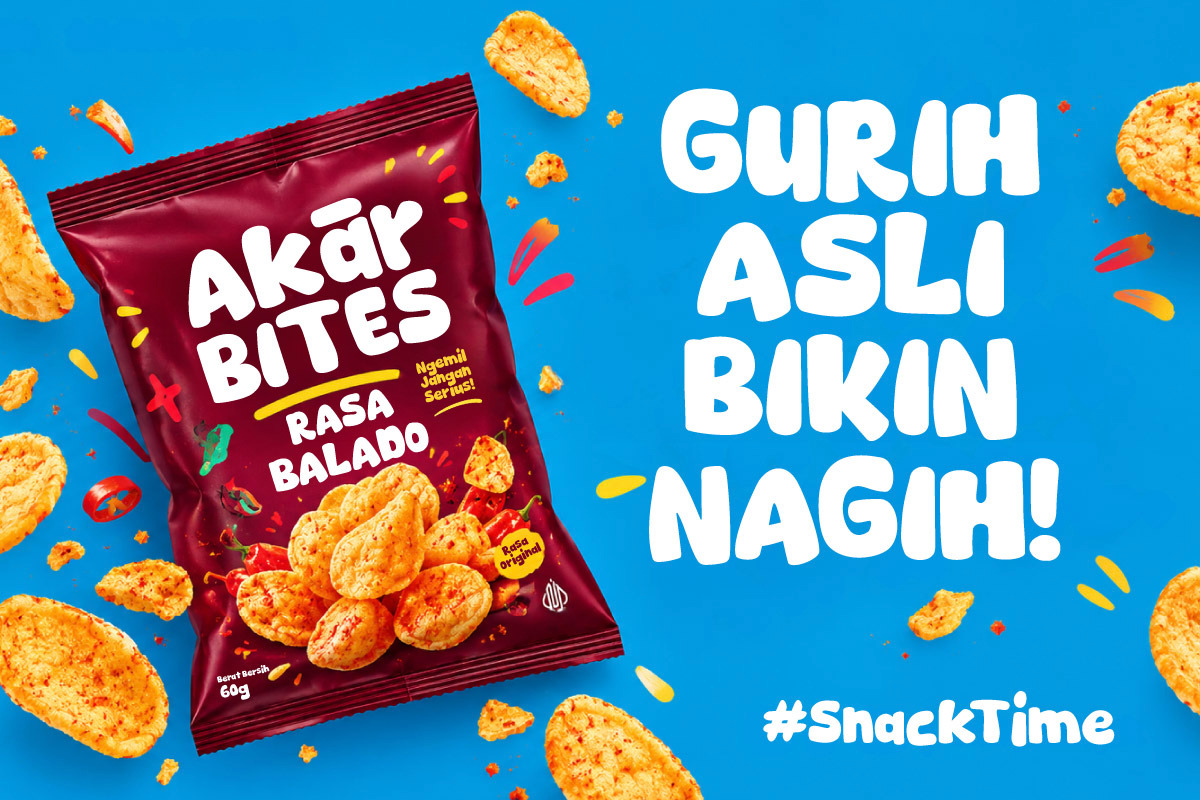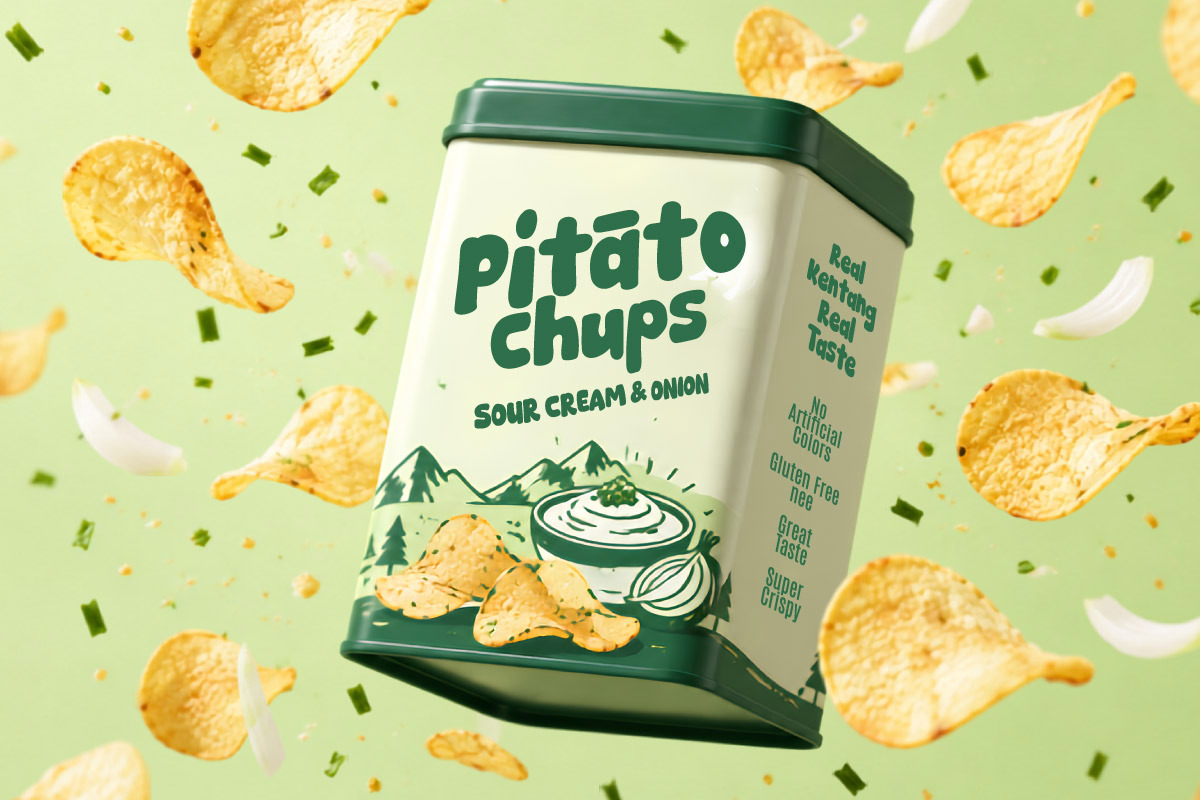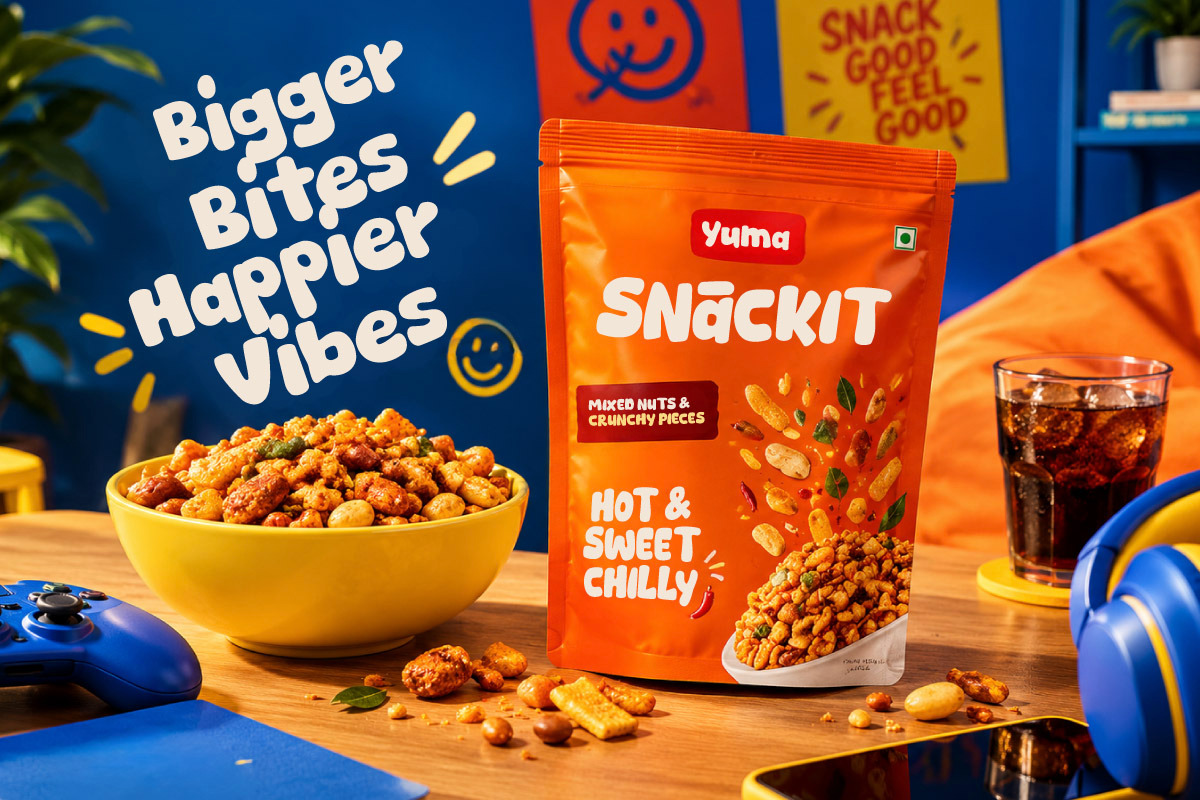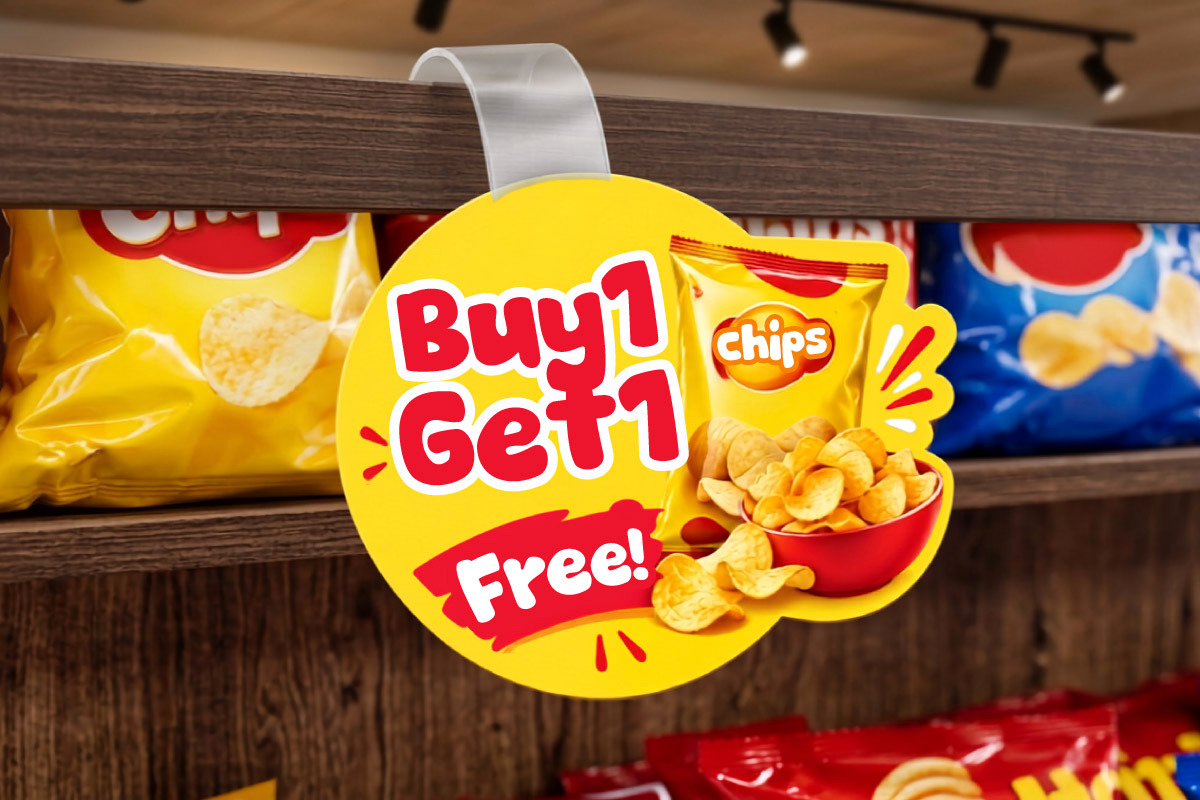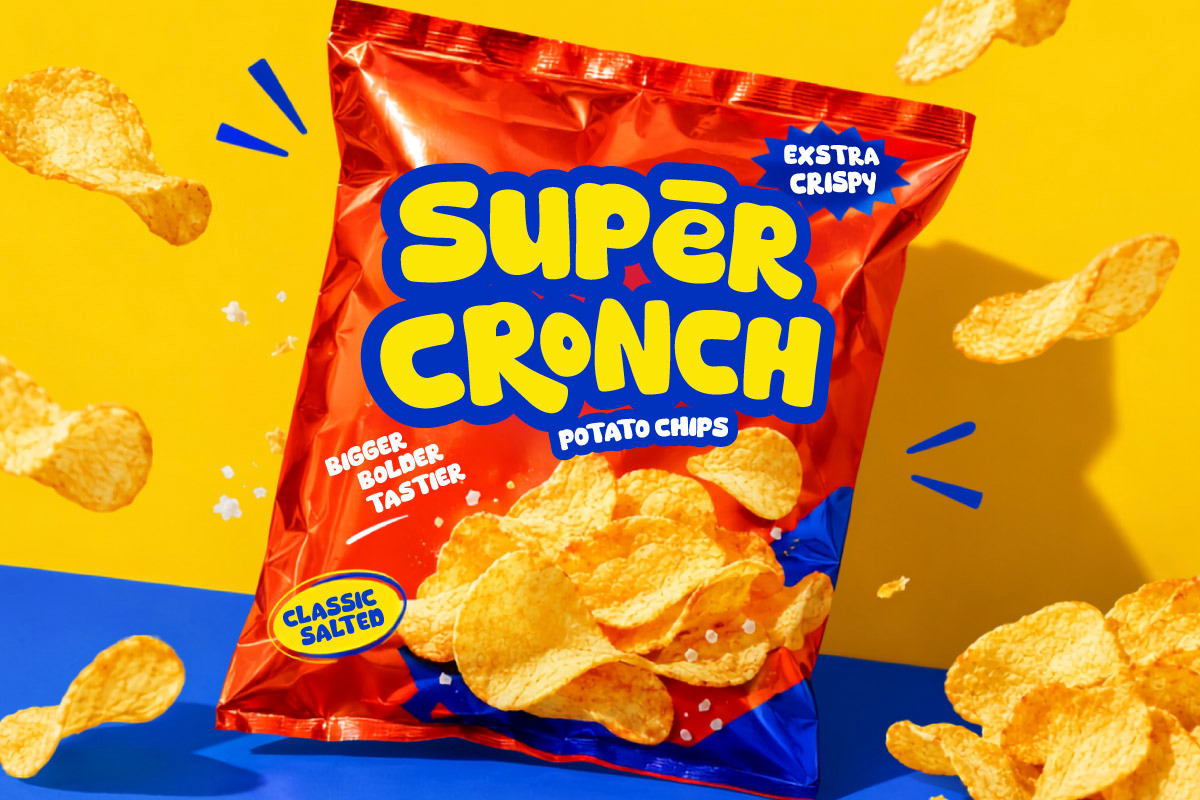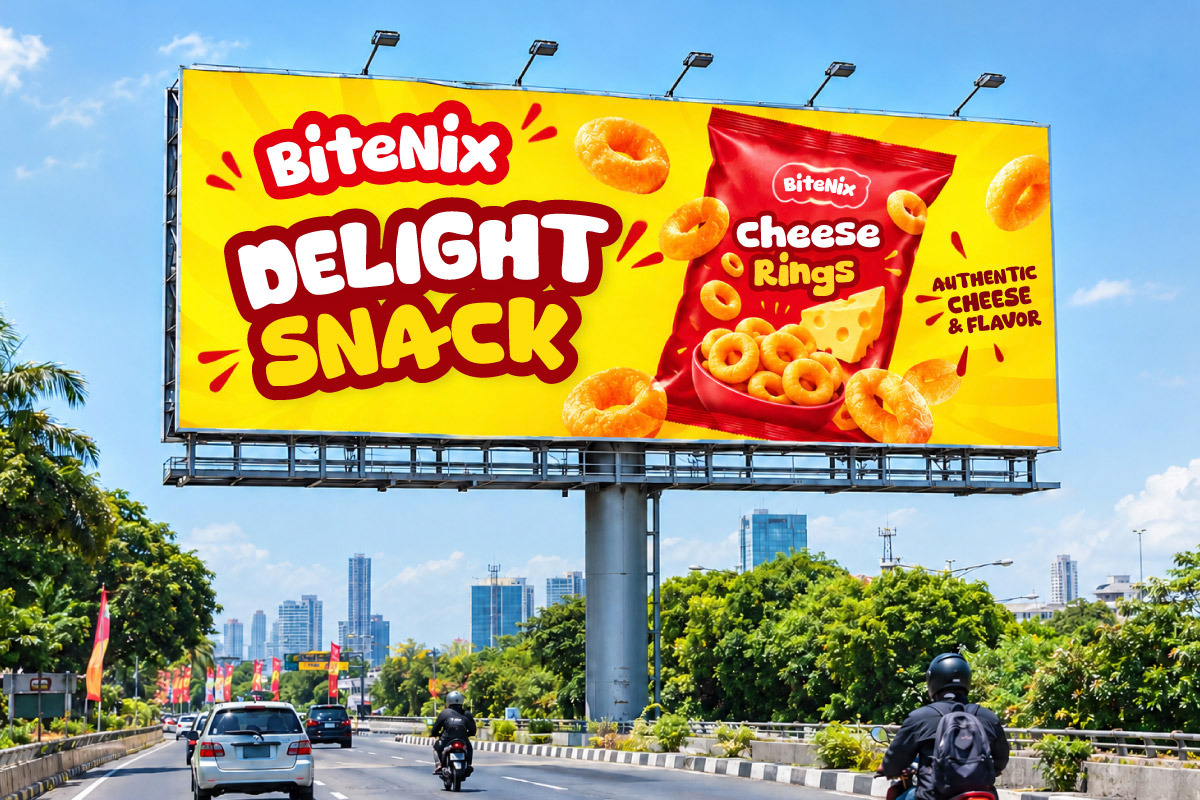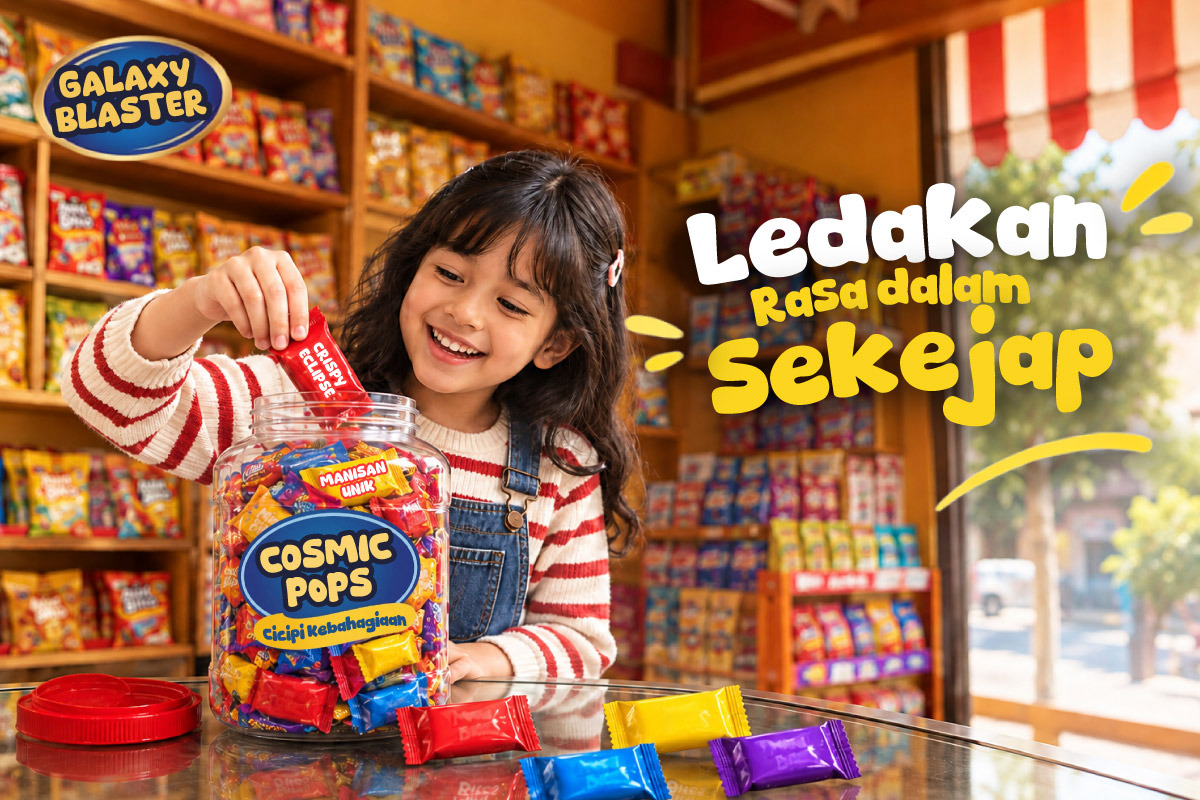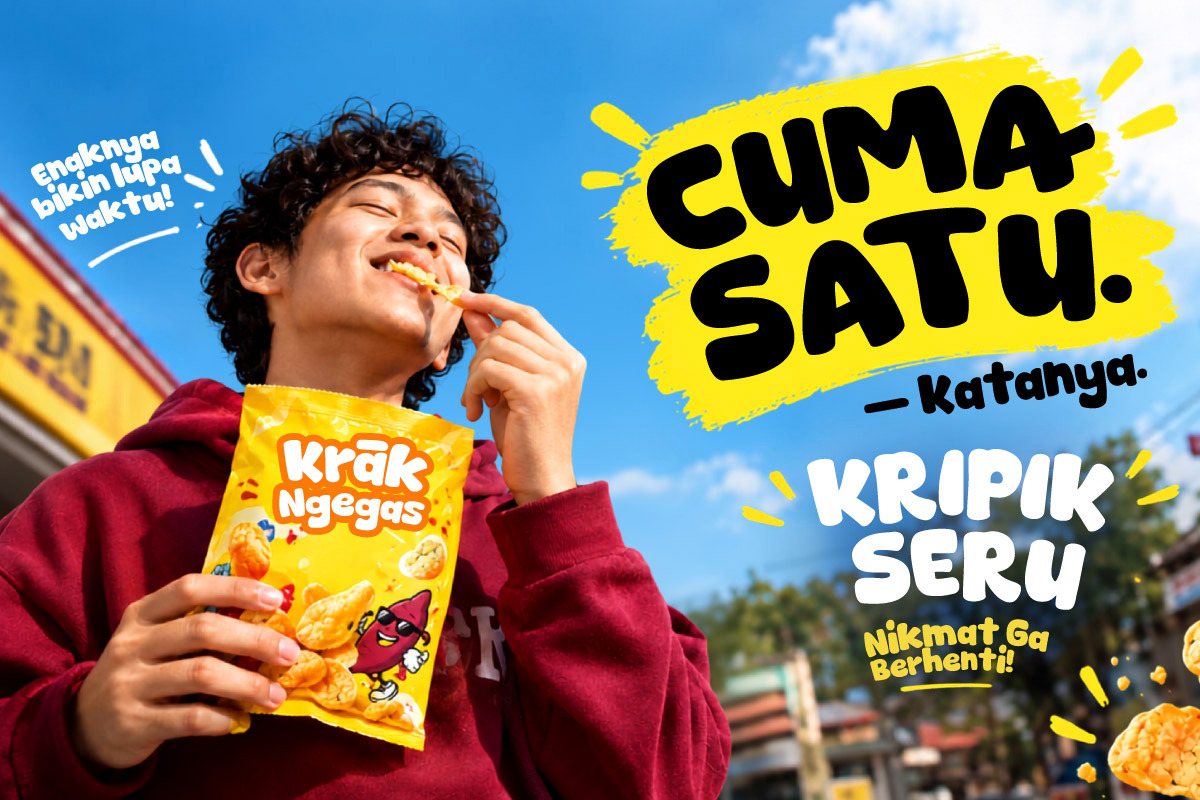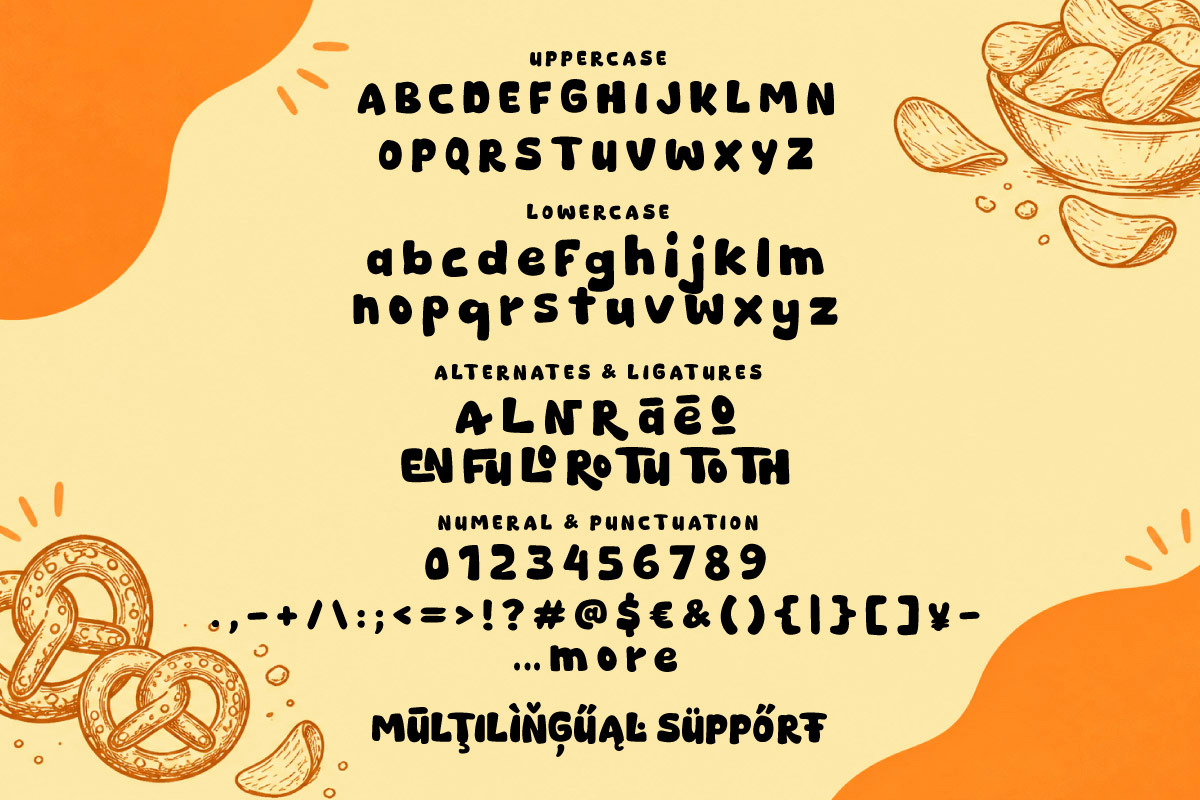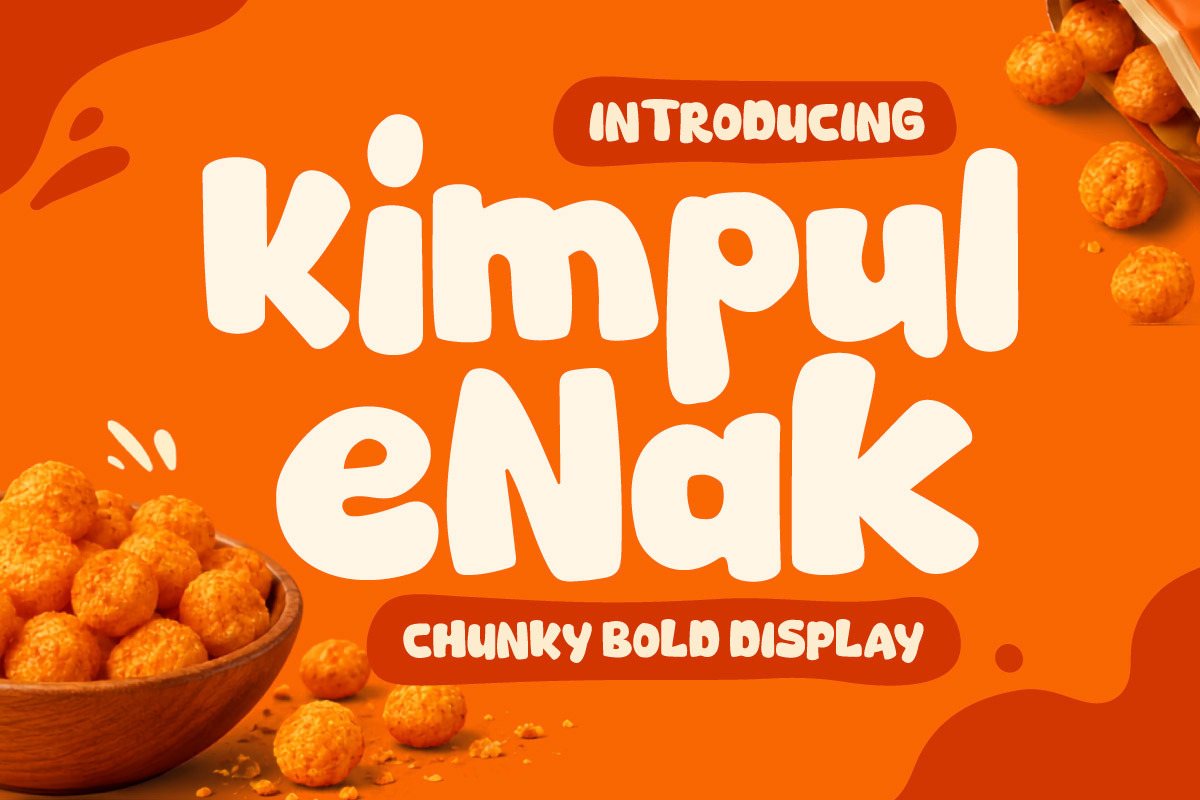
Kimpul Enak - Chunky Bold Font
Kimpul Enak steps up as a chunky bold display font packed with playful energy and appetite appeal, specially crafted for the food, beverage, and packaged goods industries. Featuring thick, solid letterforms with smooth rounded edges, this typeface delivers an instantly appetizing impression that makes any product design pop.
Engineered for maximum retail shelf impact, Kimpul Enak excels across snack pouches, foil bags, food tins, cereal boxes, supermarket signage, and outdoor billboard advertisements. Its punchy, high-visibility weight ensures that product titles, promotional headlines, and flavor callouts remain crisp and readable from a distance.
Packed with uppercase and lowercase character sets, numerals, punctuation, extended multilingual support, and a rich set of custom ligatures and alternate glyphs, Kimpul Enak offers complete creative freedom for packaging designers. Give your food brand a fun, bold, and unforgettable visual identity with Kimpul Enak.
- Multilingual Support: Fully supports 85+ languages, including:
Afrikaans, Albanian, Asu, Basque, Bemba, Bena, Breton, Catalan, Chiga, Cornish, Croatian, Czech, Danish, Dutch, Embu, English, Esperanto, Estonian, Filipino, Finnish, French, Friulian, Galician, Gusii, Hungarian, Indonesian, Irish, Italian, Kabuverdianu, Kalenjin, Kamba, Kikuyu, Kinyarwanda, Latvian, Lithuanian, Lower Sorbian, Luo, Luxembourgish, Luyia, Machame, Makhuwa-Meetto, Makonde, Malagasy, Maltese, Manx, Meru, Morisyen, North Ndebele, Norwegian Bokmål, Norwegian Nynorsk, Nyankole, Oromo, Polish, Portuguese, Quechua, Romanian, Romansh, Rombo, Rundi, Rwa, Samburu, Sango, Sangu, Scottish Gaelic, Sena, Serbian, Shambala, Shona, Slovak, Slovenian, Soga, Somali, Spanish, Swahili, Swedish, Swiss German, Taita, Teso, Turkish, Upper Sorbian, Uzbek (Latin), Volapük, Vunjo, Walser, Zulu.